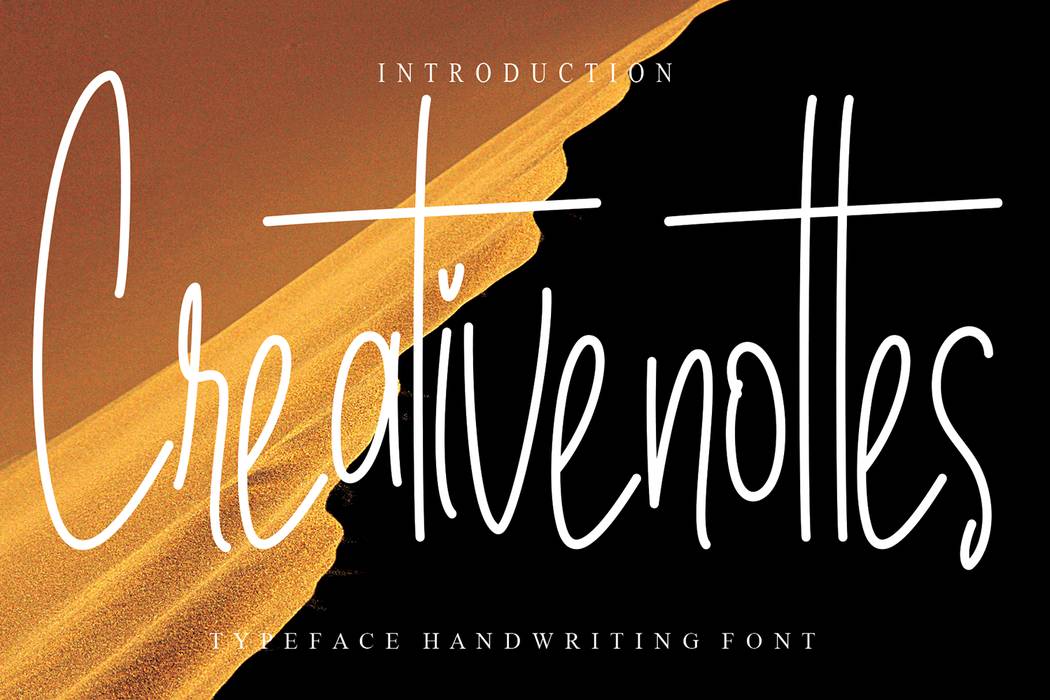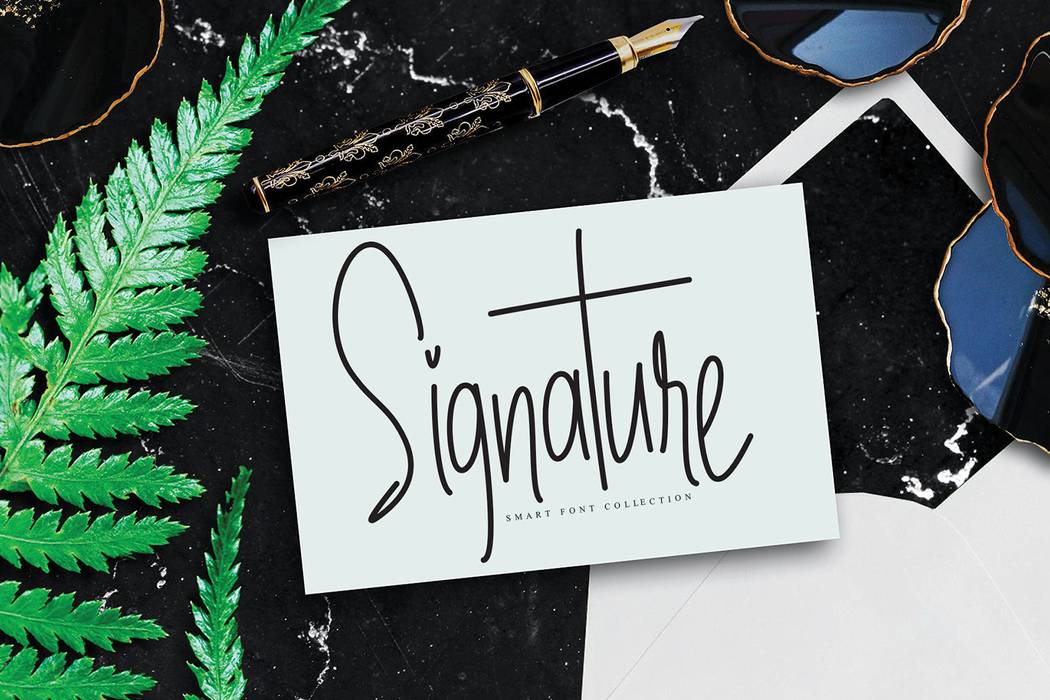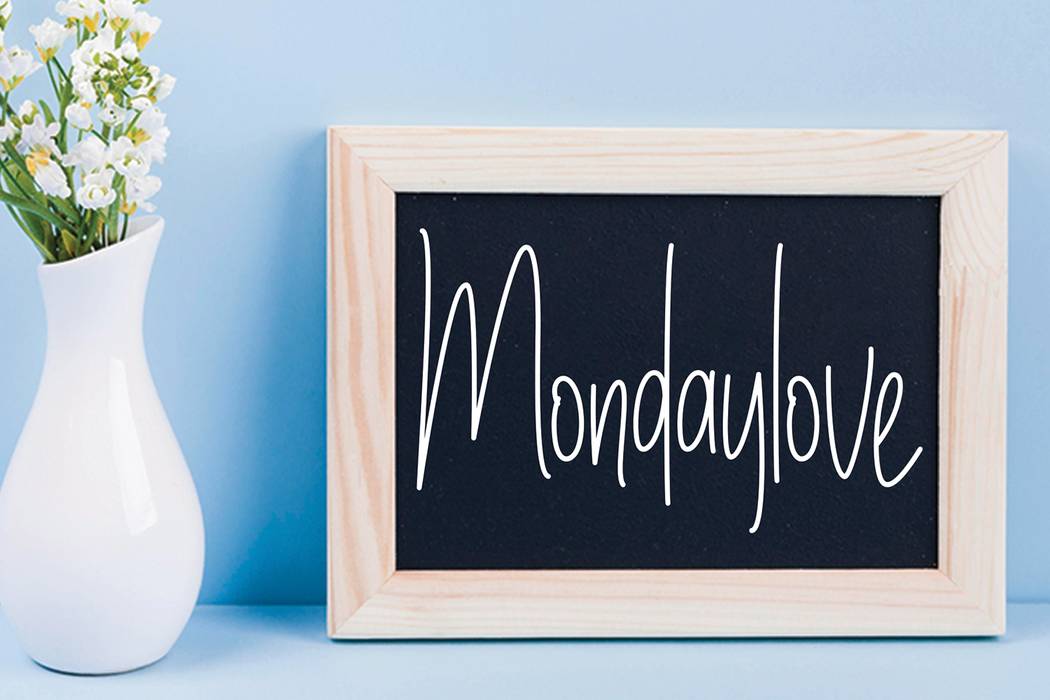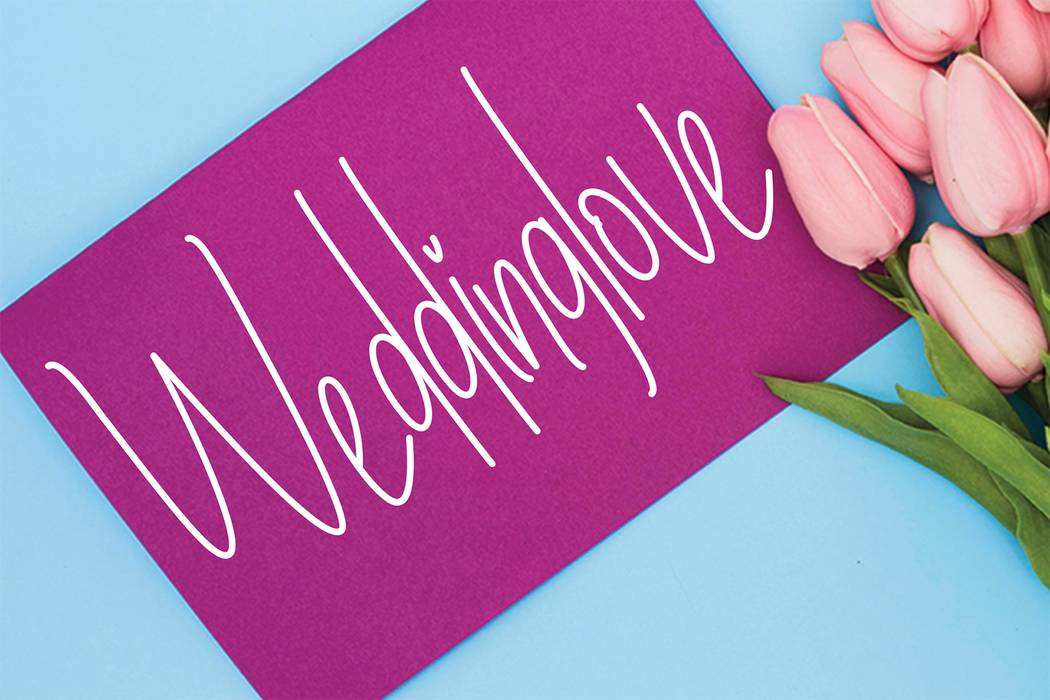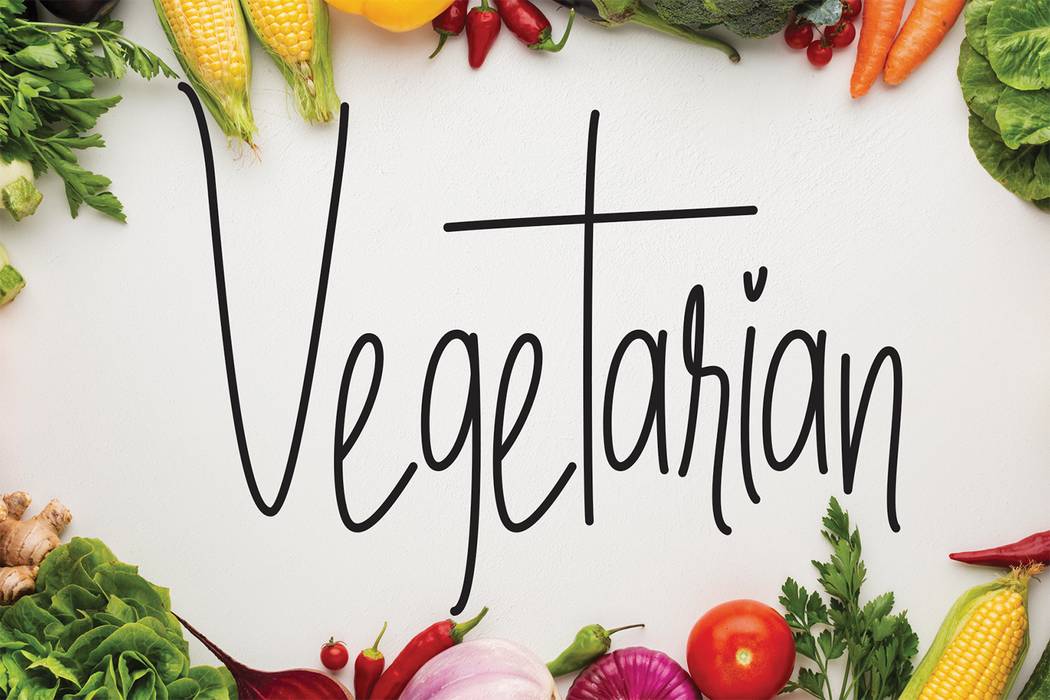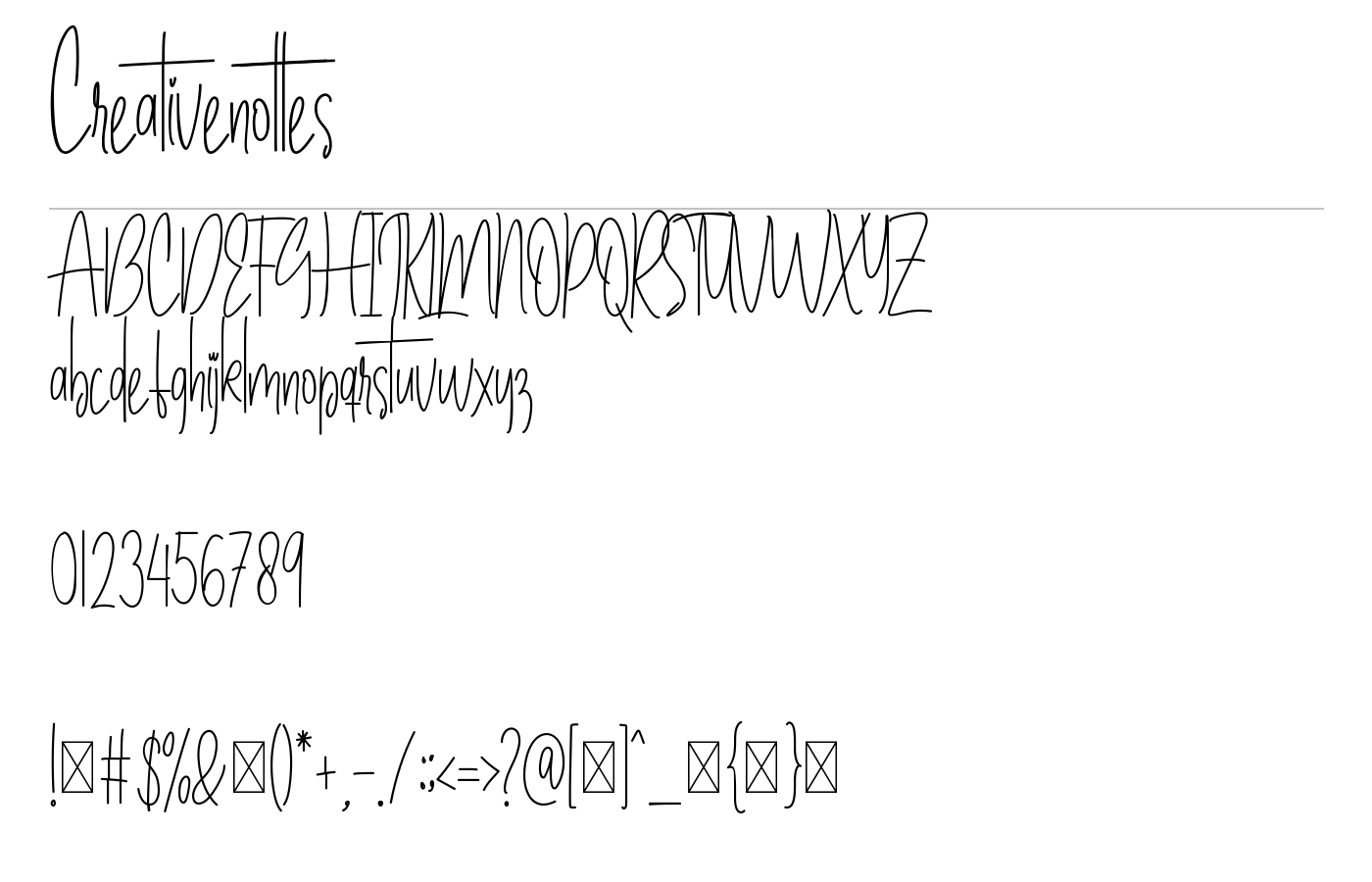
Creativenottes is a slender, handwritten sans-serif font with a playful and quirky character, featuring very tall and narrow letterforms with a casual, sketch-like stroke style. Its elongated x-height and irregular line weights give it an informal, creative feel, making it well-suited for personal notes, artistic projects, and branding that seeks a unique, approachable personality. This font shines in designs that benefit from a touch of whimsy and individuality rather than formal or highly structured typography.
Creativenottes Font